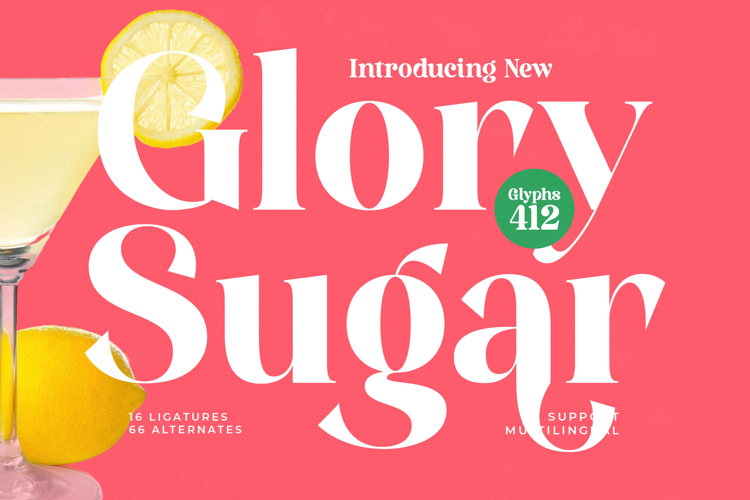
Glory Sugar - Modern Serif Font
Discover the allure of Font Glory Sugar - Modern Serif Font Serif Display, a typeface that perfectly marries classic serif elegance with a bold, contemporary aesthetic. Its captivating design features a high-contrast stroke, delivering an instant sense of sophistication and visual impact. This modern serif display font is meticulously crafted to make a powerful statement in any creative endeavor.
Unleash your creativity with the rich OpenType features embedded within Font Glory Sugar - Modern Serif Font Serif Display, including 16 ligatures and 66 alternates. These extensive options allow for truly unique character customization, providing designers with unparalleled freedom to craft captivating headlines, logos, and branding materials. Its inherent grace ensures your message is delivered with distinctive appeal.